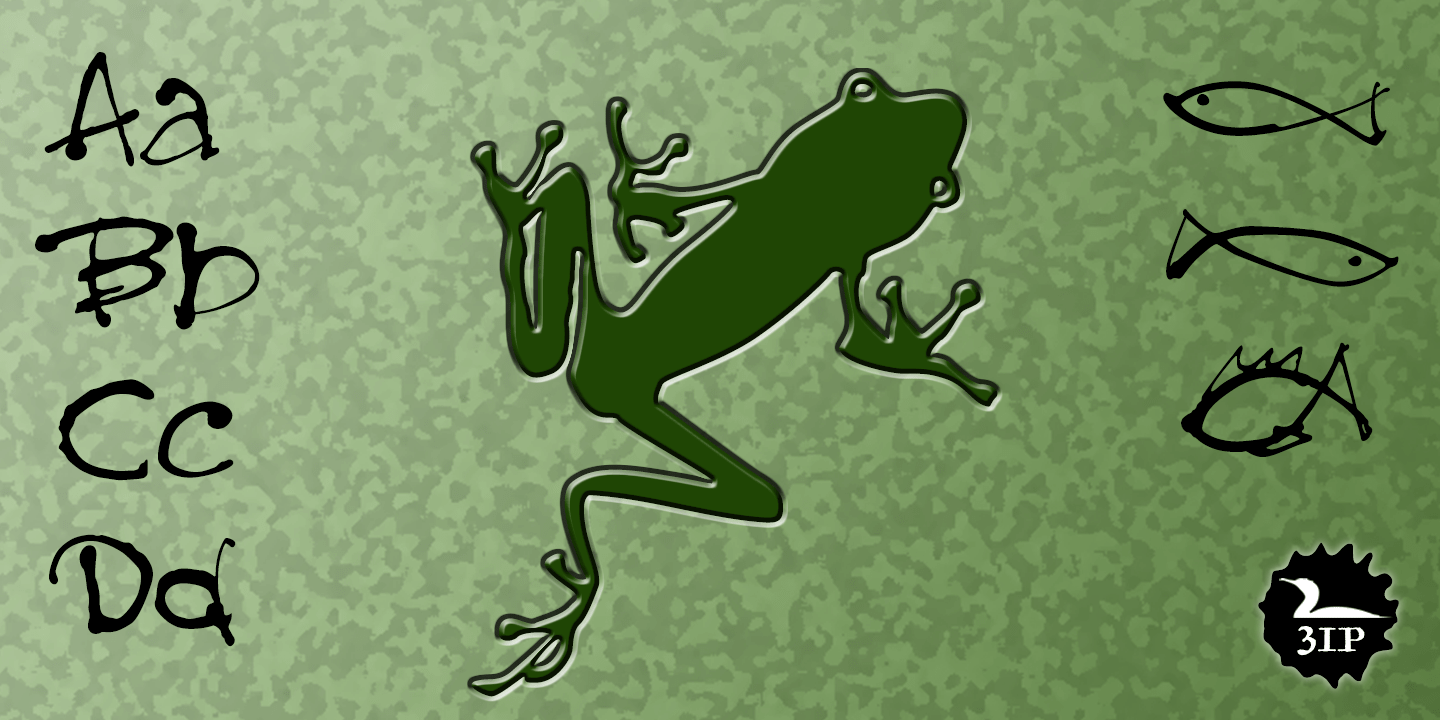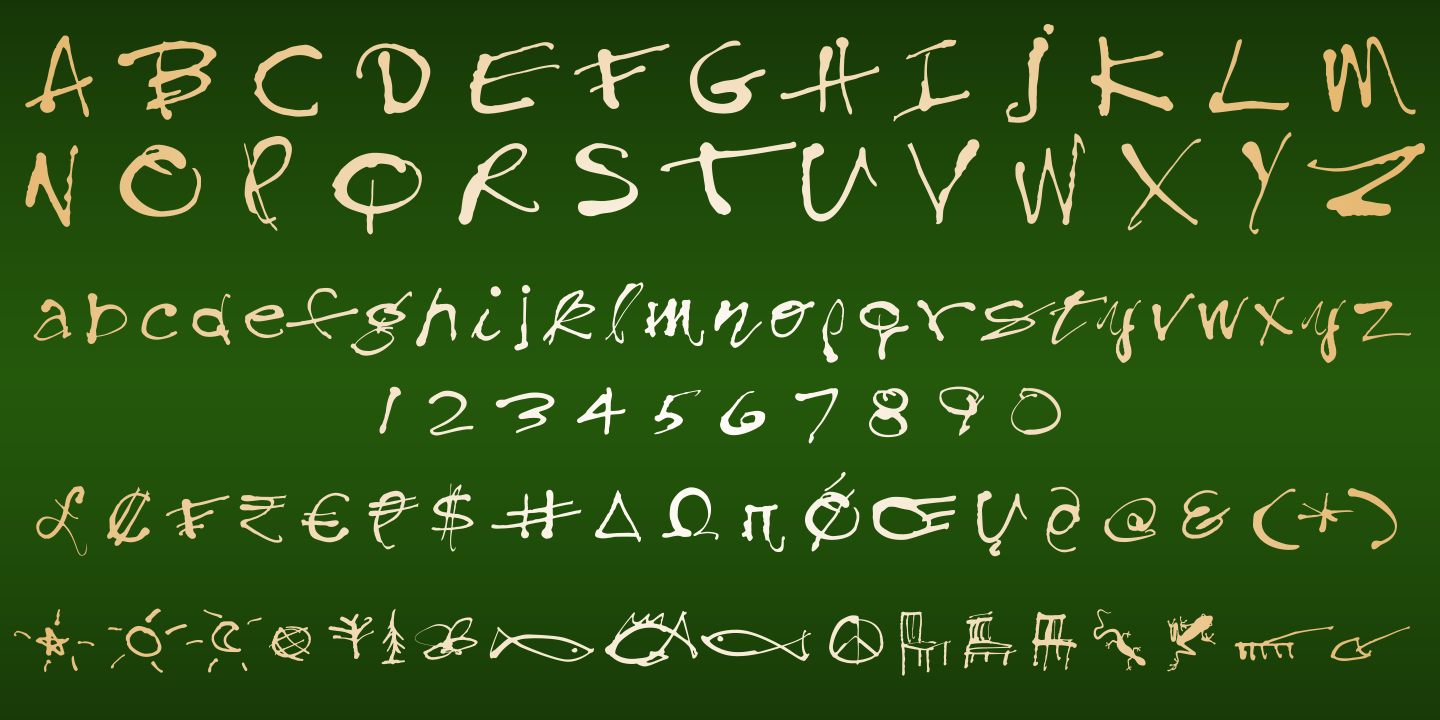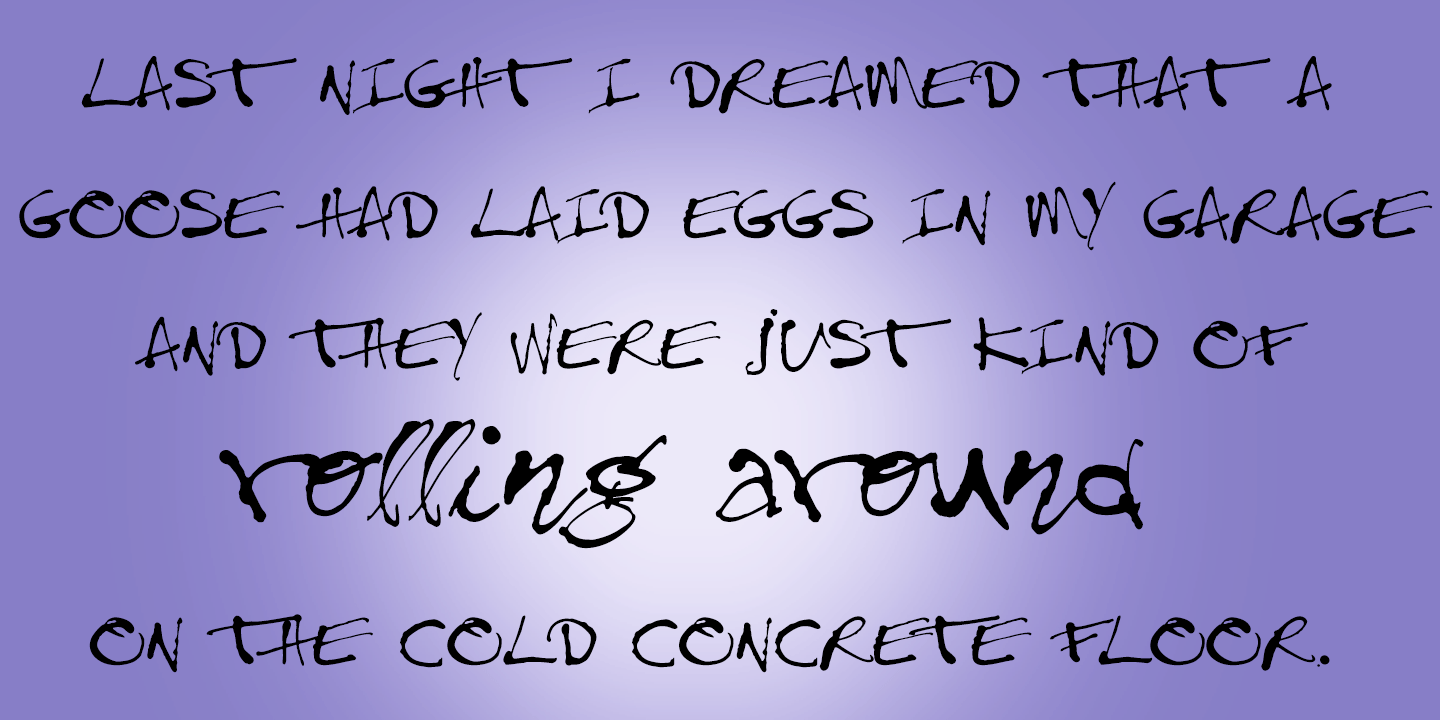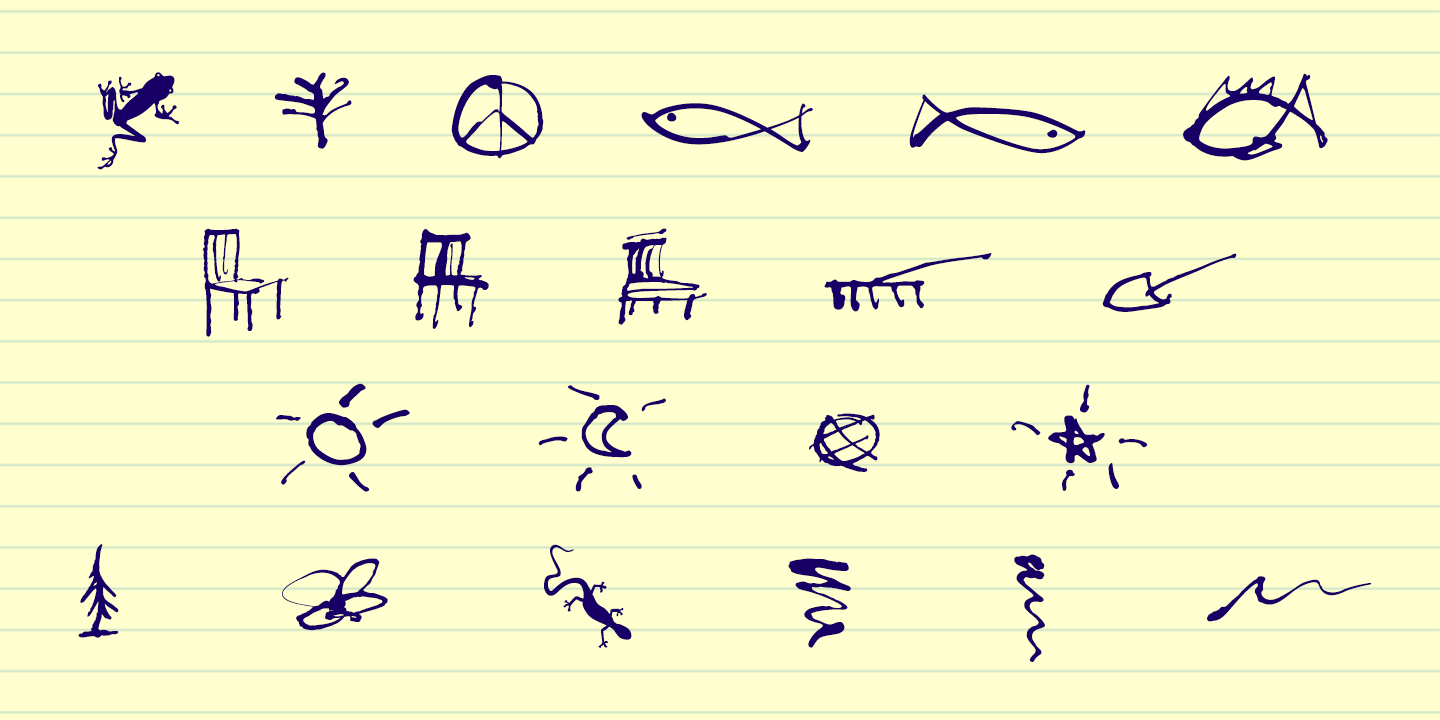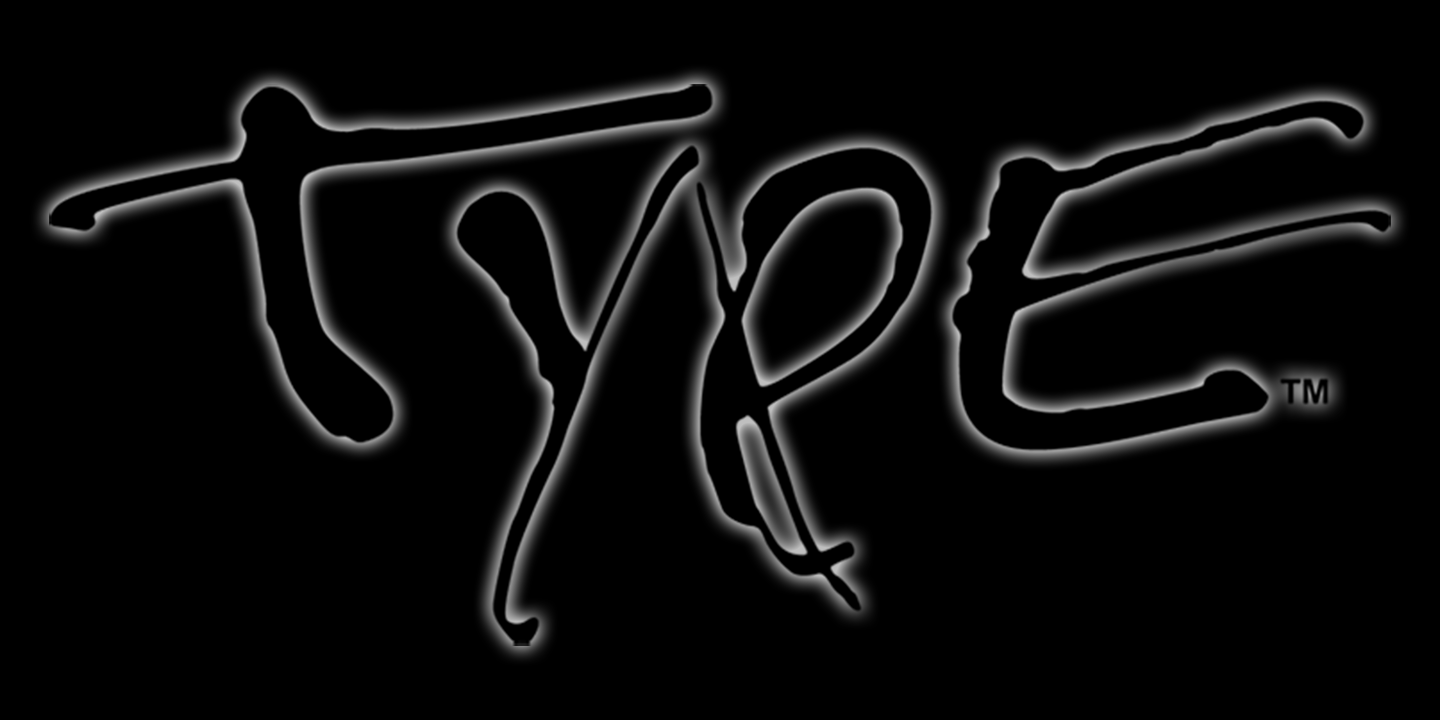
Treefrog
Font Family by Three Islands Press
A one-time co-worker of mine sometimes used a fanciful inkpen-style script in display-lettering situations.
I liked it a lot. ?Phil,? I says, "why not do the whole alphabet, maybe a few little dingbats, and I'll make a font."
Well, one day he presented me with a stack of posterboard; he'd done some letters, all right?hundreds of 'em. I managed to boil these down into a typeface called Treefrog, a name that seems to match its organic jumble, its tall x-height, its left- and right-leaning stems, its thick and thin strokes.
Full release has many dingbats.